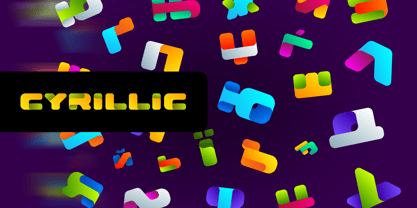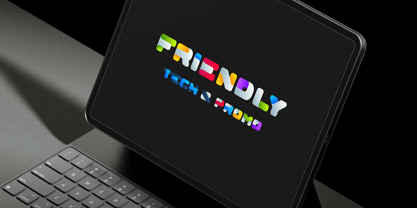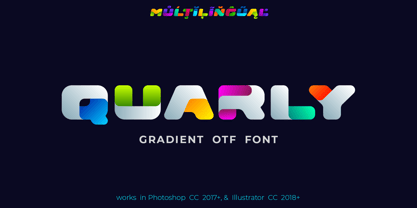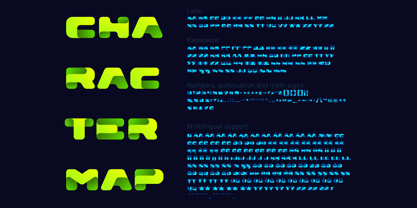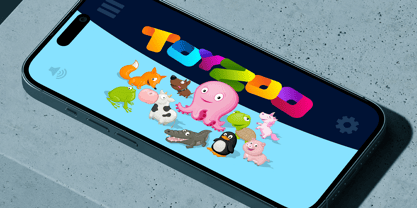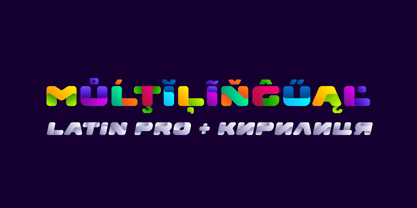
Quarly
by Sentavio
The Quarly Font Family was designed by Dmytro Poliakh and published by Sentavio. Quarly contains 2 styles and family package options. More about this family
Quarly is friendly innovative creative font can be used as logo design and branding, games & apps, headlines, posters & banners in such areas as Entertainment, Technology, Promo Ads, Food etc.
You may play with letters changing theirs colors, position, rotation to make new and interesting font combinations.